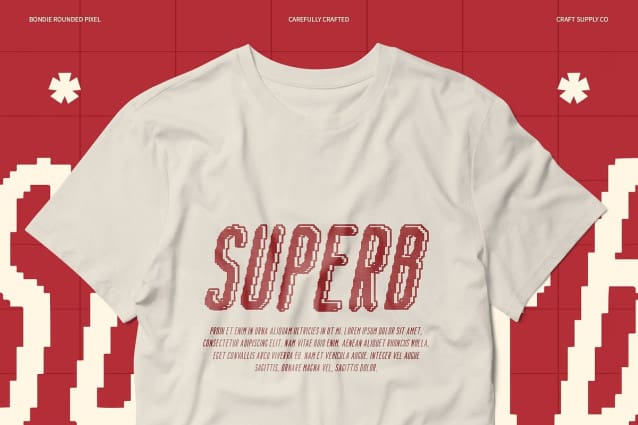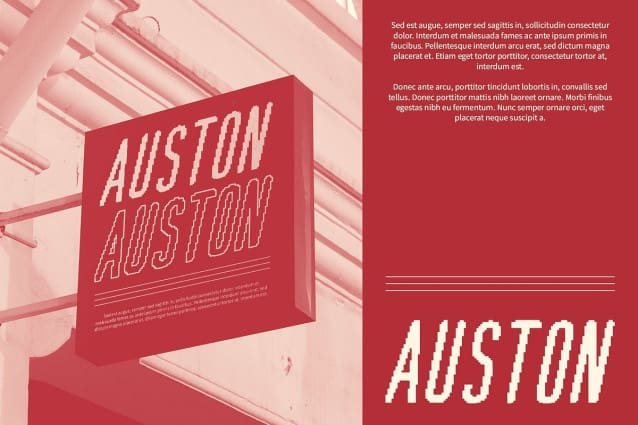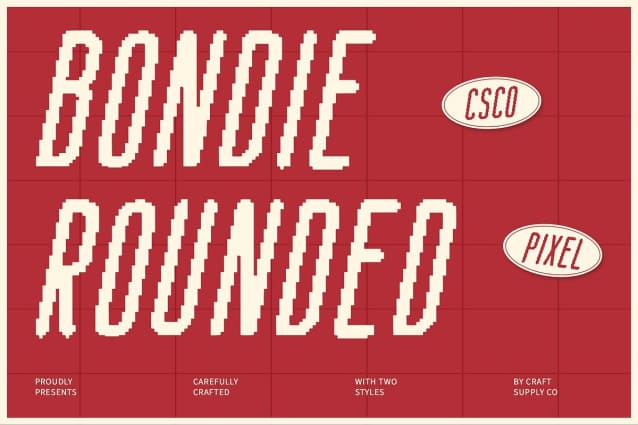
Bondie Rounded Pixel Font
Bondie Rounded Pixel Font is a modern sans serif font that stands out with its condensed, rounded shapes, offering a sleek and minimalist look. The font’s smooth, curvilinear forms create a clean and polished aesthetic, making it ideal for a range of design applications. The rounded edges soften its geometric structure, resulting in a friendly and approachable visual appeal, perfect for projects that require a professional yet accessible style.
Pixel Effect for a Retro-Futuristic Twist What sets this rounded pixel font apart is its distinctive pixel effect. This retro-futuristic detail brings a digital, nostalgic layer to the design, blending the clean lines of modern typography with the playful, pixelated textures reminiscent of early digital art. The pixel effect adds depth and character, enhancing the visual experience while bringing a tech-savvy, futuristic vibe to your designs. This combination of clean modernism and retro flair is perfect for cutting-edge branding projects or digital media.
Ideal for Digital Designs, Tech Branding, and Beyond This rounded pixel font is particularly well-suited for digital designs and tech branding, where clarity and a modern look are essential. The condensed form allows for maximum space efficiency, making it a great choice for user interfaces, app design, and tech visuals where space is often at a premium.